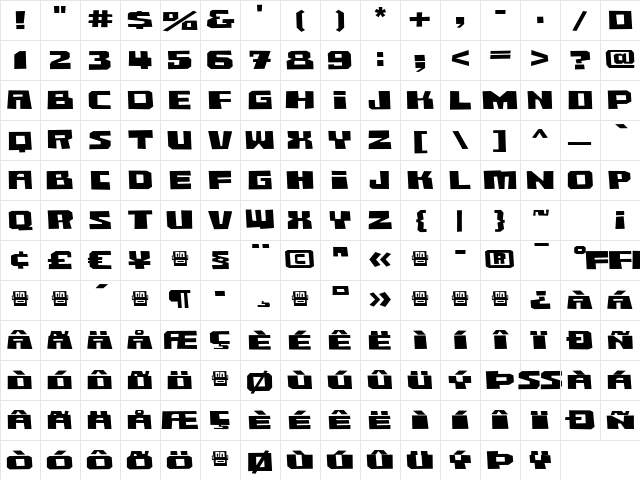
Comrade-BoldExtended is a composed and adaptable typeface that performs quietly and consistently across a wide range of design contexts. Its bold stroke weight gives it real presence on the page.